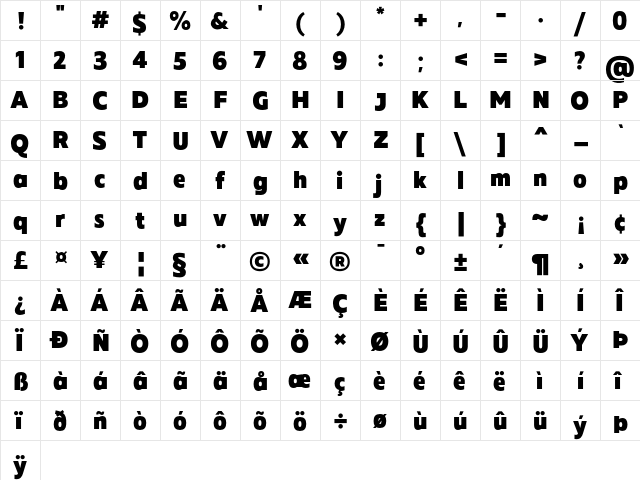
MADE Future X Black
Foundry MadeType
DesignerMadeType
Design Context for MADE Future X Typeface
MADE Future X has a distinctly futuristic character, with geometric precision and clean angles that feel at home in technology, gaming, and sci-fi contexts.